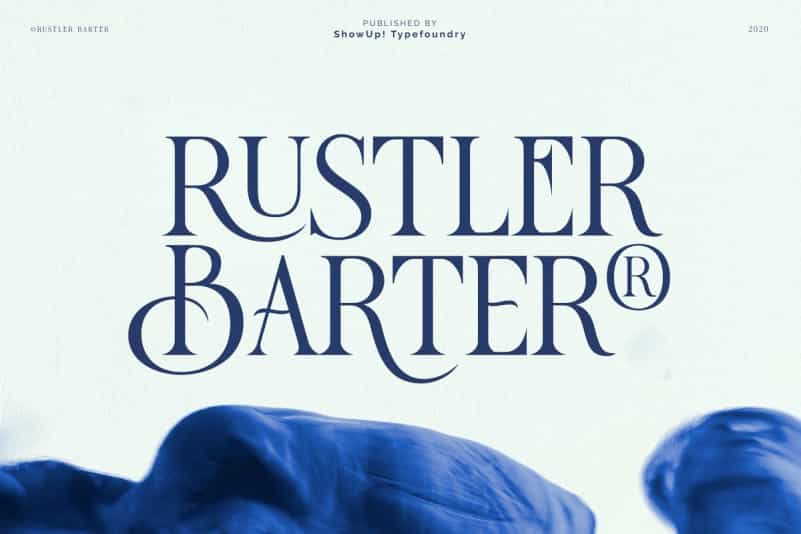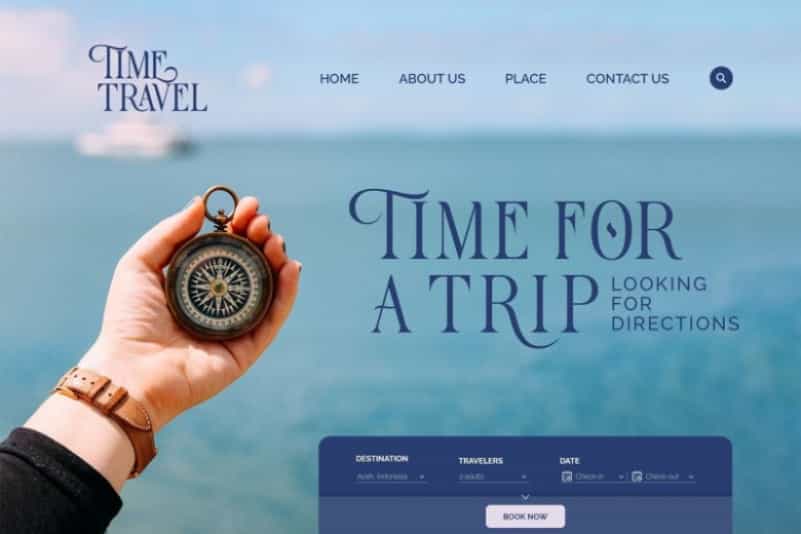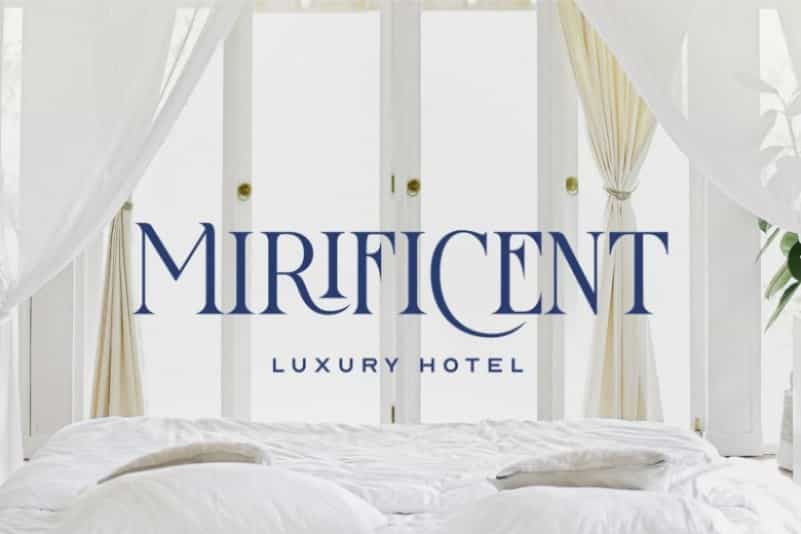
Rustler Barter is an elongated serif typeface with a unique wedge serif font guaranteed to be noticed! A bit retro, but also contemporary, Rustler Barter font is perfect as a logo, editorial and web design. The distinctive sharp serifs paired with slender strokes emit a the bold, mid-century architecture vibe.